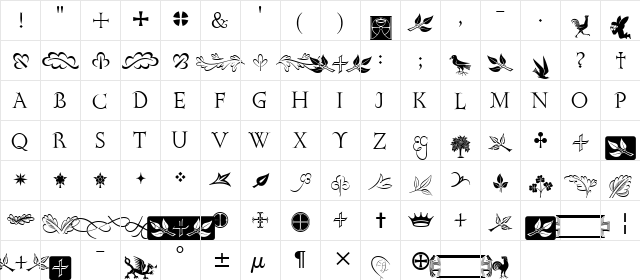
Golden Cockerel Init Orn ITC Regular
| Foundry | International Typeface Corporation |
Design Context for Golden Cockerel Init Orn ITC Typeface
Golden Cockerel Init Orn ITC offers clean, dependable letterforms without strong stylistic allegiance, making it a practical choice for designers who need flexibility.